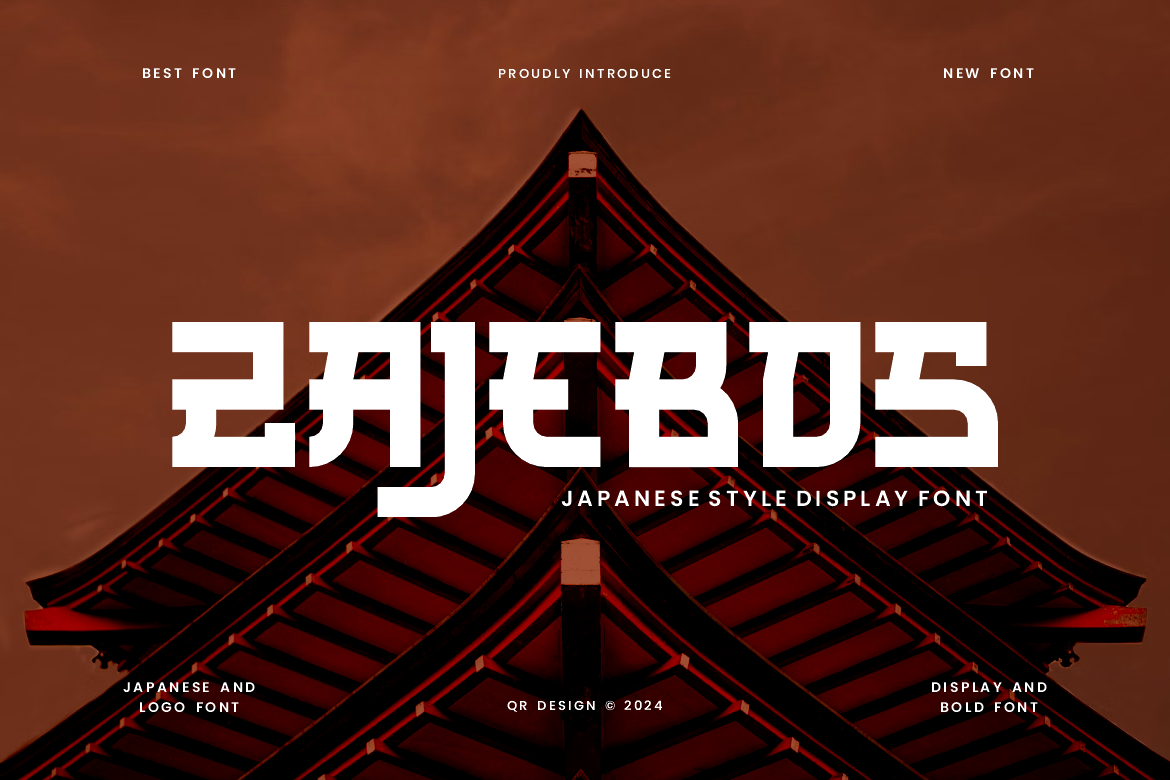
Zajebos - Japanese Font
Zajebos Font is a Japanese and authentic display font. The font is suitable for any branding project like poster, logo, sport, and many more. Outstanding in a wide range of contexts.